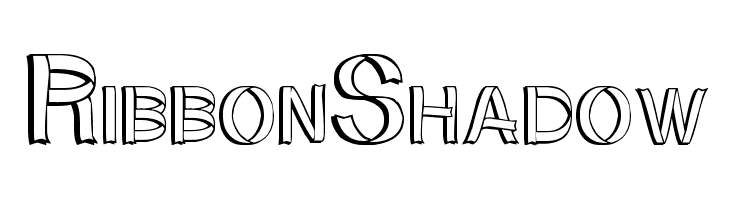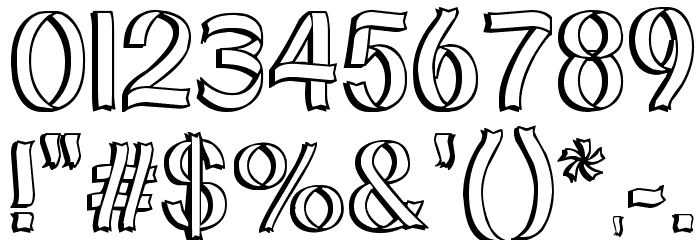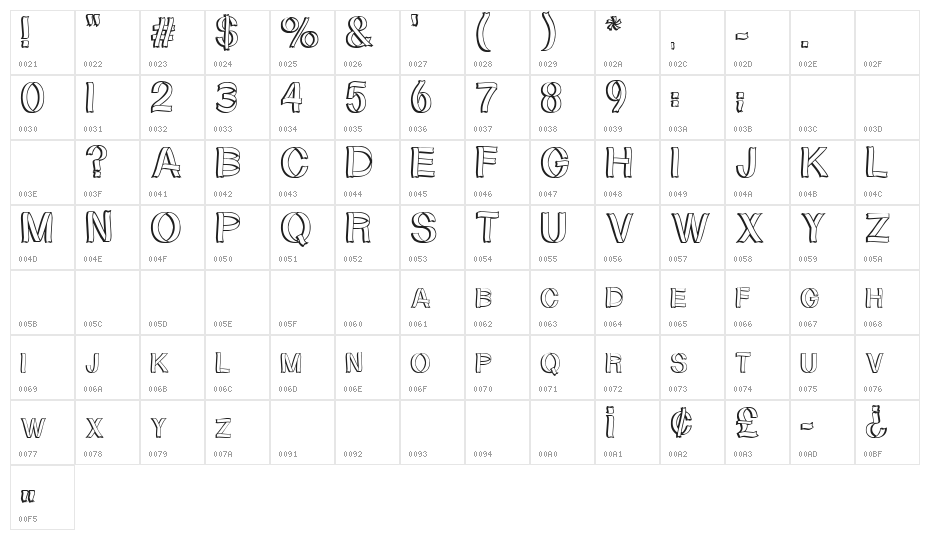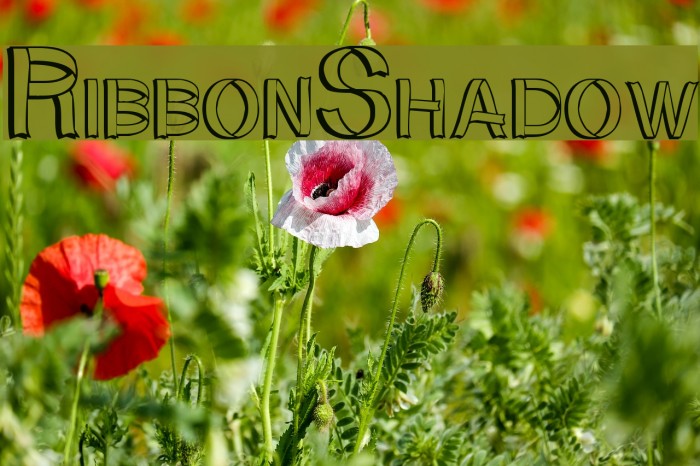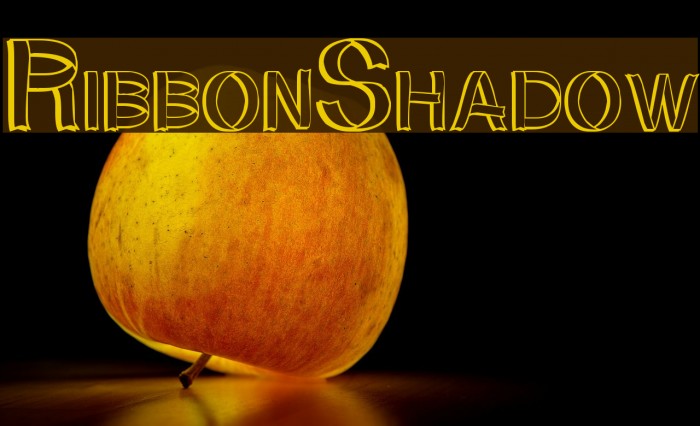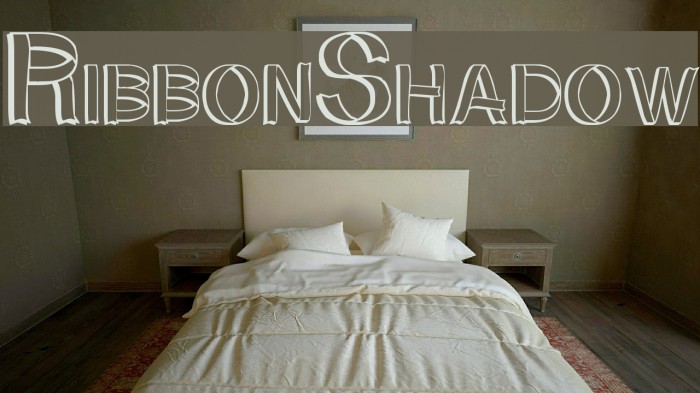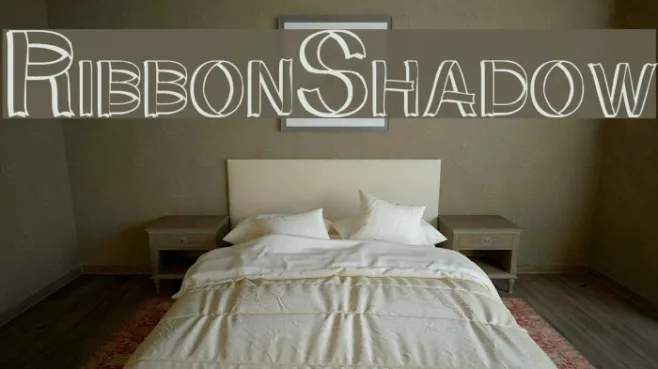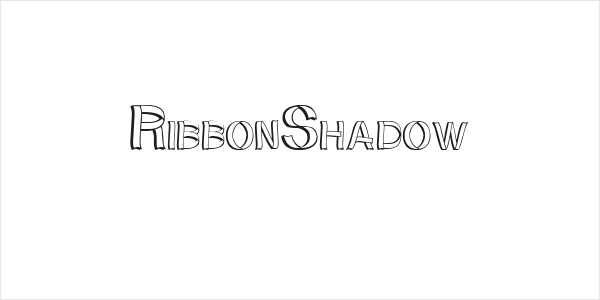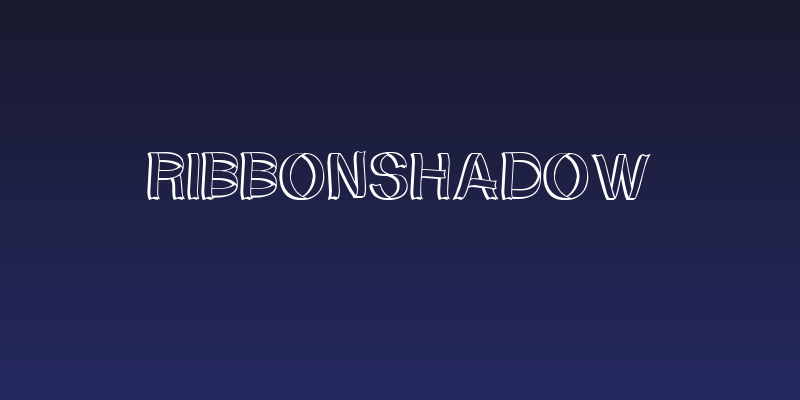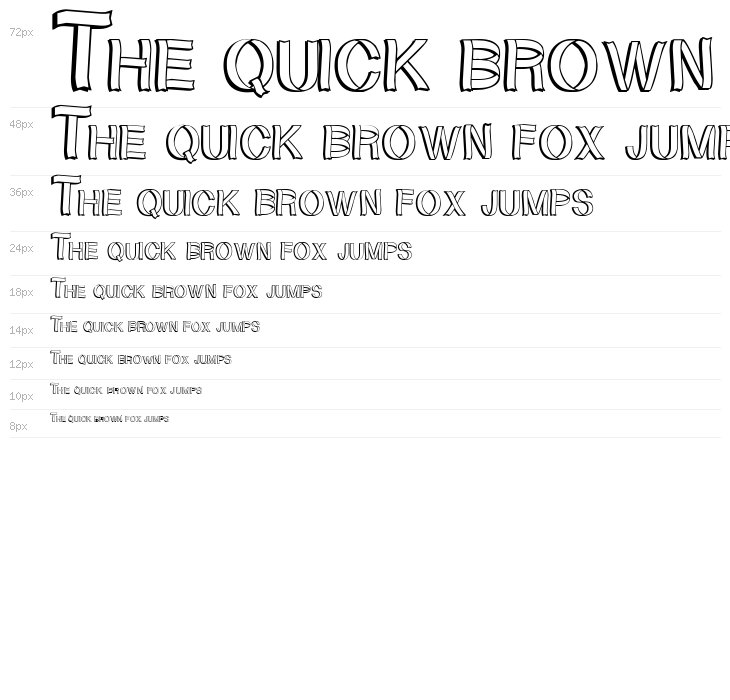
RibbonShadow Font
RibbonShadow Description
This font features a unique ribbon-like design with a shadow effect that gives it a three-dimensional appearance. Each character is crafted to resemble a folded ribbon, creating a playful yet sophisticated look. The uppercase and lowercase letters maintain a consistent style, with the shadow adding depth and visual interest. The numerals and special characters follow the same design principles, ensuring a cohesive appearance across all glyphs. The font's distinct style makes it ideal for projects that require a touch of elegance and creativity, such as invitations, posters, and branding materials.